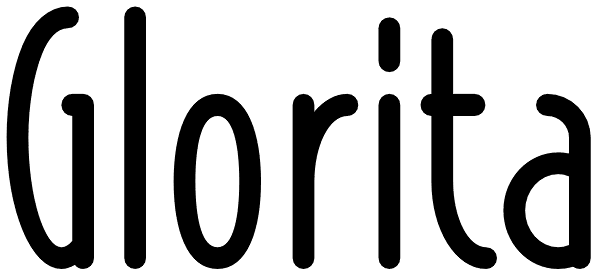
Glorita
Glorita is an original, clean and crisp, sans serif condensed font, excellent for text and at large sizes an effective display font. The font includes upper and lowercase alphabets, numbers, punctuation, accented characters, symbols, and...